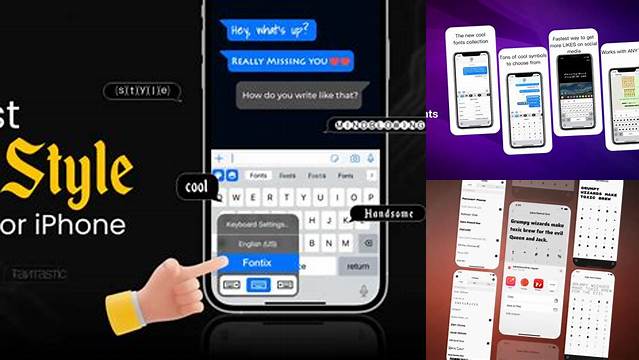
Best Free Font Apps For IPhone: Style Your Text!
Hey guys! Are you looking to spice up your iPhone with some fresh and unique fonts? Well, you've come to the right place! In this comprehensive guide, we're diving deep into the world of free font style apps for iPhones. Whether you're crafting eye-catching social media posts, designing stunning presentations, or just want to add a personal touch to your messages, having the right font can make all the difference. We'll explore the best apps available, discuss their features, and provide tips on how to use them effectively. So, buckle up and get ready to transform your text game! Finding the perfect free font can be a game-changer for your iPhone experience, whether you're looking to personalize your messages, create stunning social media content, or simply add a unique touch to your device. The right font can dramatically enhance the visual appeal of your text, making it stand out and reflect your personal style. This guide is designed to walk you through the best free font style apps available for iPhones, ensuring you can make the most of your device's capabilities. From apps that offer a vast library of fonts to those with advanced customization options, we've got you covered. We'll explore various features, discuss the pros and cons of each app, and provide practical tips on how to integrate these fonts into your daily use. So, let's dive in and discover the perfect fonts to elevate your iPhone experience!
Why Use a Font Style App?
Let's face it: the default fonts on our iPhones are, well, a bit basic. While they're perfectly functional, they don't exactly scream personality. That's where font style apps come in! These apps open up a whole new world of typographic possibilities, allowing you to express yourself in ways you never thought possible. Imagine crafting a birthday message with a playful, handwritten font, or designing an Instagram story with a bold, modern typeface. The possibilities are endless! Plus, using a font app can make your content more engaging and visually appealing, helping you stand out from the crowd. Think about it – a beautifully designed text overlay on a photo can capture attention instantly, while a unique font in your bio can leave a lasting impression. Whether you're a social media guru, a design enthusiast, or just someone who loves to personalize their tech, a font style app is an essential tool for your iPhone. These apps allow you to break free from the mundane and inject your personality into every text-based interaction. The impact of typography on visual communication cannot be overstated. A carefully chosen font can convey emotions, set the tone, and even influence the reader's perception of your message. With the right font, you can transform a simple text into a powerful statement. Font style apps not only offer a wide range of options but also provide the flexibility to experiment with different styles and find the perfect match for your needs. From elegant scripts to bold sans-serifs, the variety available ensures that there's something for everyone. Moreover, using a font app can enhance your productivity and creativity. For instance, if you're working on a presentation, a professional-looking font can add credibility to your content. If you're creating marketing materials, an eye-catching font can help grab attention and drive engagement. The ability to customize your text can significantly improve the overall impact of your communication, making font style apps an invaluable asset for both personal and professional use. So, why settle for the ordinary when you can make your text extraordinary?
Top Free Font Style Apps for iPhone
Okay, now for the good stuff! Let's take a look at some of the best free font style apps available for your iPhone. We've scoured the App Store to bring you a curated list of apps that offer a wide variety of fonts, easy-to-use interfaces, and, of course, a price tag of zero. Get ready to discover your new favorite fonts! We’ll be covering everything from classic fonts to trendy designs, ensuring there’s something for every taste and style. Each app has its unique strengths and features, so we’ll highlight what makes them stand out. This will help you make an informed decision and choose the app that best fits your needs. We'll also provide tips on how to use each app effectively, so you can start creating stunning text designs right away. Whether you're looking for fonts for social media, presentations, or everyday messaging, our guide will equip you with the tools and knowledge to elevate your text game. So, let's dive into the world of free fonts and discover the endless possibilities they offer! Remember, a great font can be the finishing touch that takes your content from good to amazing. With the right app, you can transform your text into a work of art. Here are some of the top contenders:
1. Font Diner
Font Diner is a fantastic app for those who love retro and vintage fonts. It boasts a collection of fonts that evoke a sense of nostalgia, perfect for adding a unique flair to your projects. This app is especially great for creating eye-catching designs that stand out from the crowd. Whether you're designing a poster, creating social media graphics, or just want to add a retro touch to your messages, Font Diner has you covered. The interface is user-friendly, making it easy to browse through the extensive font library and find the perfect match for your needs. The app also offers a variety of customization options, allowing you to adjust the size, color, and spacing of your text. This ensures that your text looks exactly the way you want it, every time. In addition to its vast font selection, Font Diner also provides regular updates with new fonts and features. This means you'll always have access to the latest and greatest in retro typography. The app is also designed to be lightweight and efficient, so it won't take up too much space on your iPhone or drain your battery. Overall, Font Diner is a must-have for anyone who loves vintage fonts and wants to add a touch of retro charm to their designs. Its combination of a user-friendly interface, extensive font library, and regular updates makes it a top choice among free font style apps for iPhone.
2. iFont
iFont is a powerhouse of a font app, offering a vast library of fonts that you can install directly onto your iPhone. This means you can use these fonts across all your apps, from Pages to Instagram. Talk about convenience! iFont is perfect for those who want maximum flexibility and control over their typography. The app supports a wide range of font formats, including TTF and OTF, and allows you to preview fonts before installing them. This ensures that you're always choosing the perfect font for your project. The installation process is straightforward, but it does require a few steps, so be sure to follow the instructions carefully. Once installed, your new fonts will be available in the font picker of any app that supports custom fonts. iFont also includes a font manager, which allows you to organize your fonts and easily uninstall any that you no longer need. This helps keep your font library tidy and prevents your iPhone from becoming cluttered. In addition to its extensive font library, iFont also offers a variety of other features, such as the ability to create font packages and share them with others. This makes it a great tool for designers and creatives who collaborate on projects. The app also provides regular updates with new fonts and features, ensuring that you always have access to the latest typographic innovations. Overall, iFont is a comprehensive font app that offers everything you need to customize your iPhone's typography. Its vast font library, easy installation process, and additional features make it a top choice for anyone who wants to take their text game to the next level.
3. Fonts
Keeping it simple and to the point, the app named Fonts is another excellent option. It’s super user-friendly and offers a wide variety of fonts that you can use directly within other apps. Think of it as a font keyboard – you simply switch to the Fonts keyboard, type your message in your chosen font, and then paste it into your app of choice. Easy peasy! This app is perfect for creating stylish social media posts, eye-catching messages, and more. Fonts boasts a diverse collection of fonts, ranging from elegant scripts to bold display faces. The app also includes a variety of symbols and emojis, allowing you to add extra flair to your text. The interface is clean and intuitive, making it easy to browse through the font library and select the perfect font for your needs. Fonts is also designed to be lightweight and efficient, so it won't slow down your iPhone or drain your battery. The app also offers a premium subscription, which unlocks additional fonts and features. However, the free version provides a generous selection of fonts that are more than enough for most users. One of the standout features of Fonts is its real-time preview function. This allows you to see how your text will look in a particular font before you commit to using it. This can save you a lot of time and effort, as you can quickly experiment with different fonts and find the perfect match for your message. Overall, Fonts is a fantastic font app that offers a simple and effective way to customize your iPhone's typography. Its user-friendly interface, wide variety of fonts, and real-time preview function make it a top choice for anyone who wants to add a touch of style to their text.
How to Use Font Style Apps Effectively
Now that you know about some awesome free font style apps, let's talk about how to use them effectively. It's not just about picking a cool font – it's about using fonts strategically to enhance your message and create a visual impact. First and foremost, consider the context. A playful font might be perfect for a birthday greeting, but it might not be the best choice for a professional presentation. Think about your audience and the message you're trying to convey. Next, don't go overboard! Using too many different fonts can make your text look cluttered and confusing. Stick to a maximum of two or three fonts per project. Use one font for headings and another for body text to create a clear visual hierarchy. Also, pay attention to font pairings. Some fonts look great together, while others clash. A classic pairing is a serif font for headings and a sans-serif font for body text. Finally, make sure your fonts are legible. A beautiful font is useless if people can't read it. Choose fonts that are clear and easy to read, especially for body text. Adjust the font size and spacing as needed to ensure optimal readability. By following these tips, you can use font style apps to create stunning text designs that enhance your message and leave a lasting impression. Remember, typography is an art form, so don't be afraid to experiment and have fun! A few tips and tricks can help you maximize the impact of your chosen fonts. Here’s how to use font style apps effectively to elevate your content:
Choose Fonts That Match Your Style
The first step in using font style apps effectively is to choose fonts that align with your personal style and the message you're trying to convey. Different fonts evoke different emotions and create different impressions. For instance, a bold, sans-serif font might be perfect for a modern and energetic design, while an elegant script font might be better suited for a formal invitation. Take the time to explore the font libraries in your chosen app and experiment with different styles. Consider the overall aesthetic you're aiming for and choose fonts that complement it. If you're creating content for a specific brand, make sure the fonts you choose align with the brand's identity and values. Consistency is key when it comes to branding, so using the same fonts across all your materials can help reinforce your brand's image. Also, think about the readability of your fonts. While a fancy font might look great, it's useless if people can't read it. Choose fonts that are clear and easy to read, especially for body text. If you're using a decorative font for headings, make sure it's paired with a legible font for the main content. By choosing fonts that match your style and message, you can create designs that are both visually appealing and effective.
Mix and Match Fonts Wisely
One of the most effective ways to create visually interesting text designs is to mix and match fonts. However, it's important to do this wisely. Using too many different fonts can make your text look cluttered and confusing. A good rule of thumb is to stick to a maximum of two or three fonts per project. Choose one font for headings and another for body text to create a clear visual hierarchy. This helps guide the reader's eye and makes your content easier to digest. When choosing fonts to pair, look for fonts that complement each other. A classic pairing is a serif font for headings and a sans-serif font for body text. Serif fonts have small decorative strokes at the ends of the letters, while sans-serif fonts do not. This combination creates a nice contrast and makes your text more readable. You can also experiment with different weights and styles within the same font family. For instance, you might use a bold weight for headings and a regular weight for body text. This creates visual interest without introducing too many different fonts. Another important consideration is the mood and tone of your fonts. Make sure the fonts you choose work well together and convey the right message. If you're not sure where to start, there are many online resources that offer font pairing suggestions. By mixing and matching fonts wisely, you can create text designs that are both visually appealing and effective.
Pay Attention to Font Size and Spacing
The size and spacing of your fonts can have a significant impact on readability and visual appeal. Pay close attention to these details when using font style apps to ensure your text looks its best. Font size is crucial for readability. If your font is too small, people will have difficulty reading it. If it's too large, it can look overwhelming. Choose a font size that is appropriate for the context and the audience. For body text, a size of 12 to 14 points is generally a good starting point. For headings, you can use a larger size to make them stand out. Spacing is another important factor. There are two main types of spacing to consider: letter spacing and line spacing. Letter spacing refers to the space between individual letters, while line spacing refers to the space between lines of text. Adjusting these settings can improve readability and visual appeal. For instance, increasing the line spacing can make your text look more open and airy, while decreasing the letter spacing can make your text look more compact. Be careful not to overdo it, though. Too much or too little spacing can make your text difficult to read. Most font style apps offer options to adjust font size and spacing, so experiment with different settings until you find what works best for your design. By paying attention to font size and spacing, you can ensure your text is both legible and visually appealing.
So there you have it! A comprehensive guide to free font style apps for your iPhone. We've explored the benefits of using these apps, highlighted some of the best options available, and provided tips on how to use them effectively. Now it's time to unleash your creativity and start experimenting with different fonts. Remember, the right font can make all the difference in your text designs, so don't be afraid to try new things and push the boundaries. Whether you're creating social media posts, designing presentations, or just want to add a personal touch to your messages, font style apps are an invaluable tool for your iPhone. They offer a world of typographic possibilities, allowing you to express yourself in ways you never thought possible. So, go ahead and download a few of these apps today and start transforming your text game! And there you have it, folks! Elevating your iPhone typography game doesn't have to break the bank. With the plethora of free font style apps available, you can add a personal touch to your messages, social media posts, and more. Remember, the key is to find apps that resonate with your style and needs. Experiment with different fonts, mix and match them wisely, and pay attention to the details like font size and spacing. By doing so, you'll be able to create visually appealing and effective content that stands out from the crowd. Whether you're a design enthusiast or just looking to add some flair to your everyday communications, these apps are a fantastic resource. So go ahead, explore the world of typography, and let your creativity shine! With the tips and app suggestions we've shared, you're well-equipped to transform your iPhone's text into a work of art. Happy font hunting!